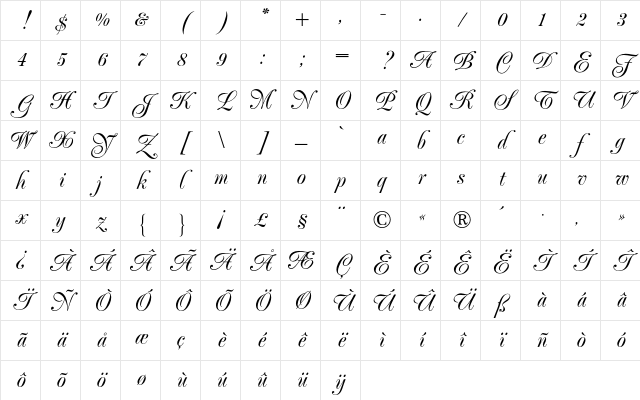
Poppl-Exquisit BQ Regular
Poppl-Exquisit BQ Family
Poppl-Exquisit BQ Regular
Poppl-Exquisit BQ Regular Font Preview
Poppl-Exquisit BQ Regular Uppercase Preview
Poppl-Exquisit BQ Regular Lowercase Preview
Poppl-Exquisit BQ Regular Numeric Preview
Poppl-Exquisit BQ Regular Character Map
Complete Poppl-Exquisit BQ Regular glyph index. Displaying only characters natively supported by Poppl-Exquisit BQ Regular font.
Design Context for Poppl-Exquisit BQ
Poppl-Exquisit BQ is a composed and adaptable typeface that performs quietly and consistently across a wide range of design contexts.